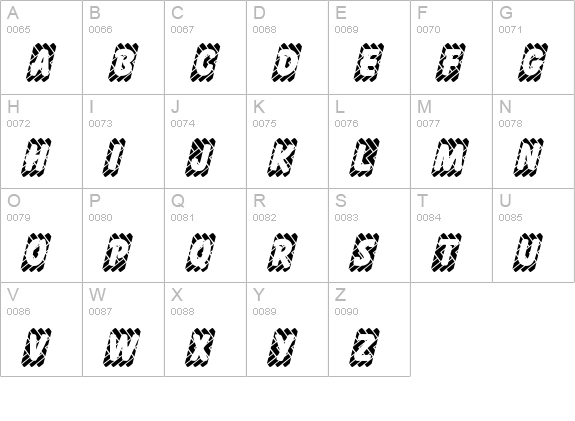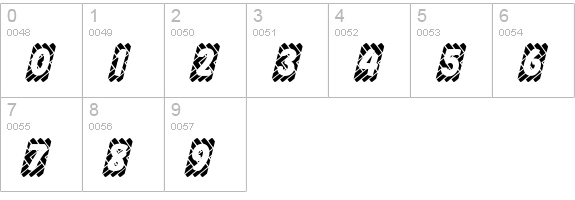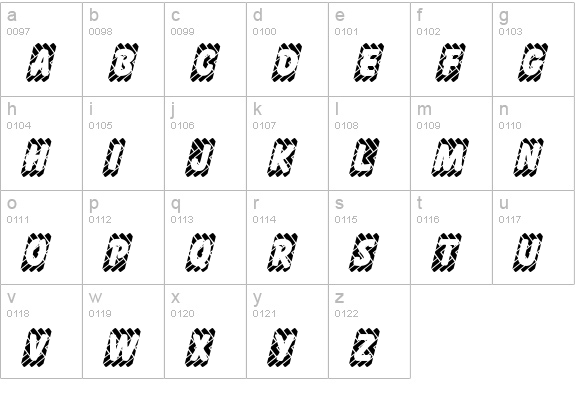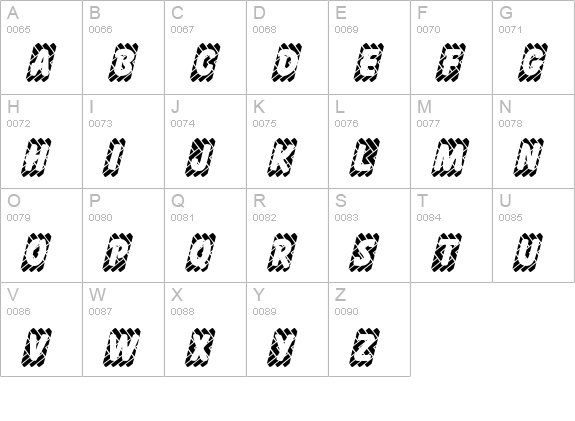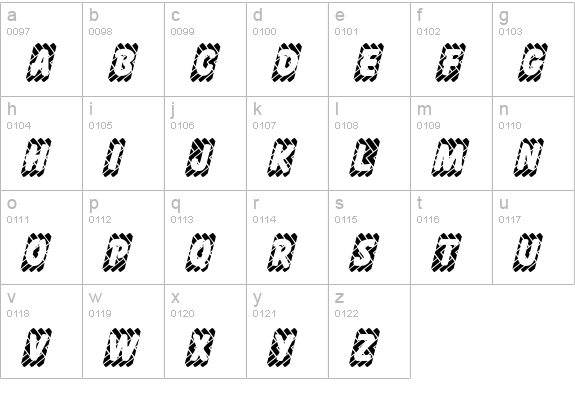
Skidz Font Details
Skidz font is a playful and dynamic typeface that exudes an energetic and youthful vibe. Its unique letterforms are characterized by bold, exaggerated curves and sharp angles, giving it a distinctive and eye-catching appearance. Whether it's for a poster, logo, or any other design project, Skidz font is sure to add a touch of fun and excitement. What sets Skidz font apart is not just its bold and vibrant style, but also the fact that it is available for free. That's right, you can freely download Skidz font at FontsMarket.com, making it accessible to designers and creatives of all kinds. With its generous licensing terms, you can use Skidz font for both personal and commercial projects without any restrictions. Skidz font is incredibly versatile and can be used in various contexts. Its bold and legible letterforms make it perfect for headlines and titles, while its playful nature lends itself well to branding and packaging designs. Whether you're looking to create a bold statement or add a touch of whimsy to your project, Skidz font is the perfect choice. The attention to detail in Skidz font is exceptional. Each letter has been carefully crafted to ensure optimal legibility, even at smaller sizes. The smooth curves and sharp angles create a sense of movement and energy, adding a dynamic element to any design. Skidz font is designed to make a lasting impression. Its bold and unique style will make your designs stand out from the crowd and leave a lasting impact on your audience. So why wait? Download Skidz font for free at FontsMarket.com and unleash your creativity today.